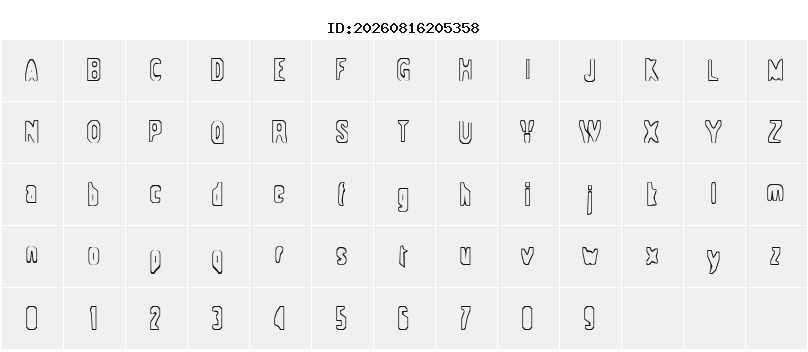
Space-ship 354 Preview
• Font Name: Space-ship 354
• Font Style: Shuttle..
• Full Font Name: Space-ship 354
About Space-ship 354.ttf
Space-ship 354.ttf is a modern, elegant sans-serif font designed for ultimate readability and visual harmony. Perfect for branding, headlines, web design, and print materials.